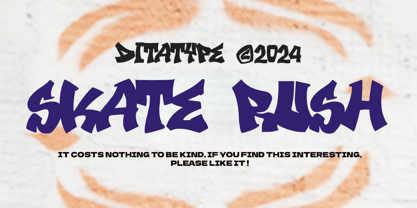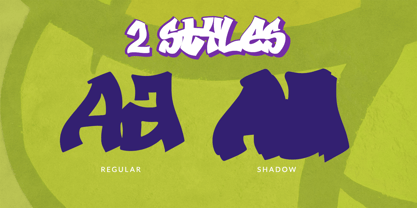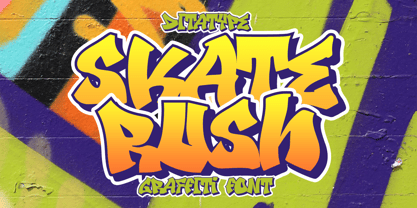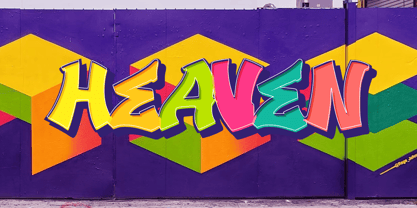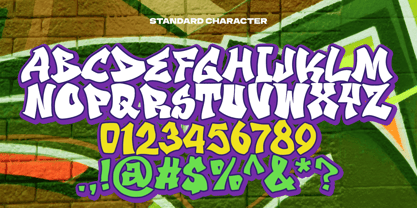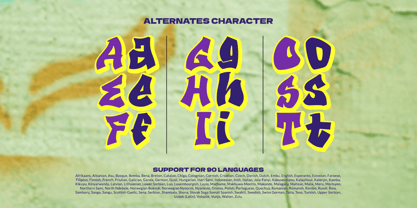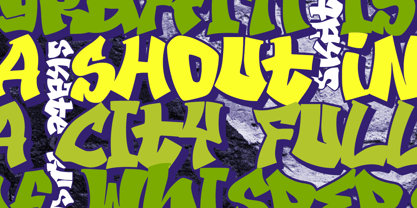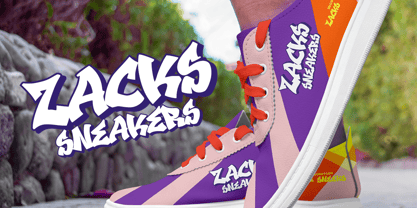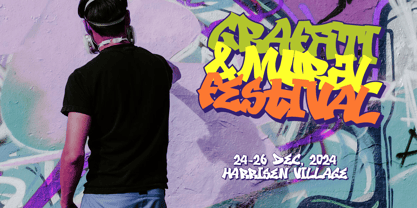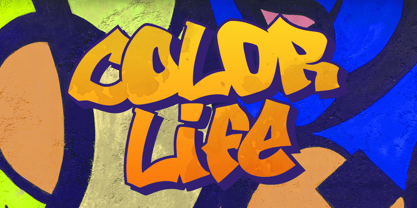
Skate Rush
by Ditatype
The Skate Rush Font Family was designed by Donis Miftahudin and published by Ditatype. Skate Rush contains 2 styles and family package options. More about this family
Skate Rush is a bold and energetic graffiti font that embodies the rebellious spirit of street culture. Crafted in all uppercase, this font shows a thick weight and irregular letter shapes that capture the authentic essence of graffiti art. The sharp corners add an edgy and daring vibe, while the shadow style provides depth and a dynamic, three-dimensional effect. Skate Rush delivers a raw, unapologetic aesthetic that commands attention and radiates street-style confidence. In addition, enjoy the features here.
Features:
• Alternates
• Multilingual Supports
• PUA Encoded
• Numerals and Punctuations
Skate Rush fits in logos, posters, branding materials, print media, and many more designs. Find out more ways to use this font by taking a look at the font preview.